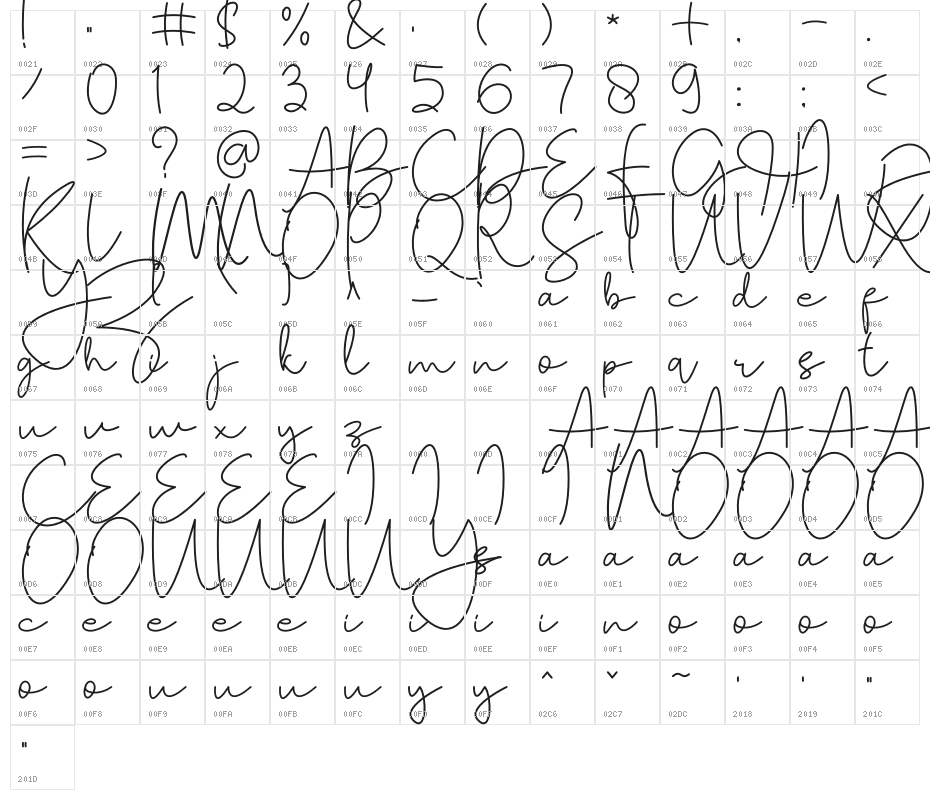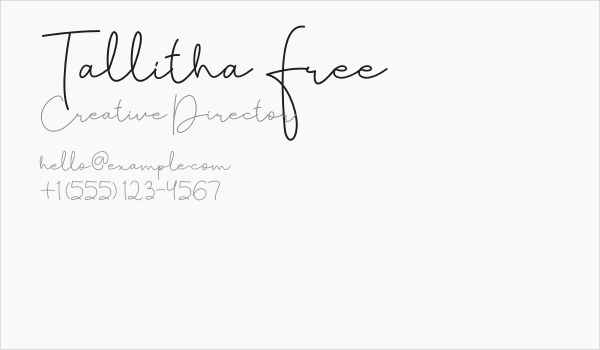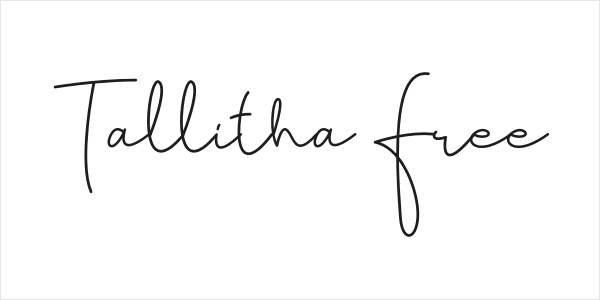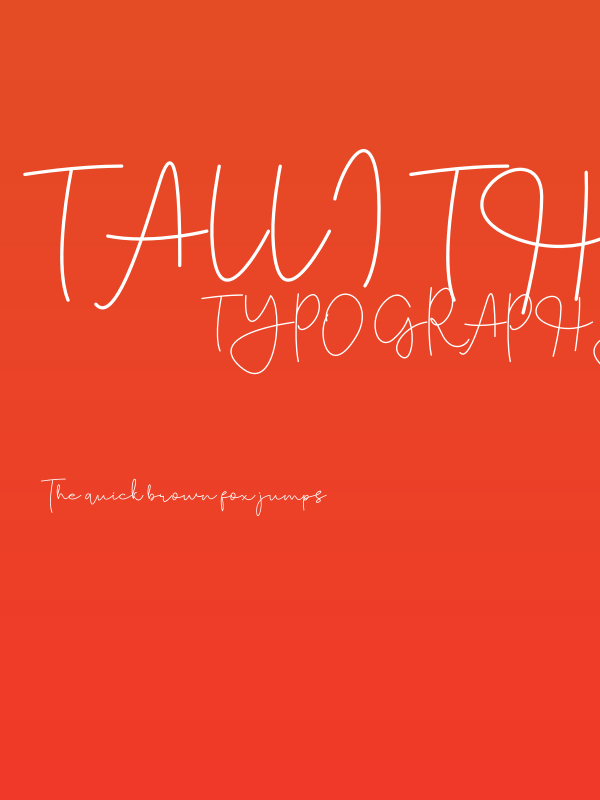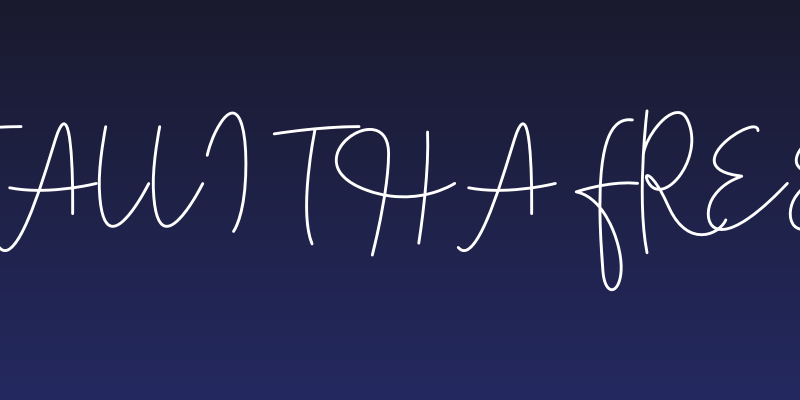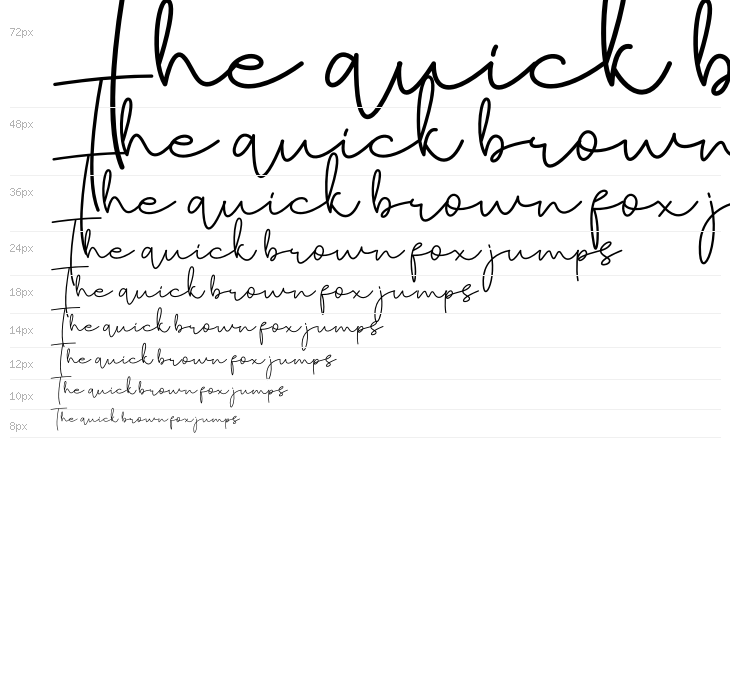
Tallitha Free Font
Tallitha Free Description
This font features a lively and flowing handwritten style, characterized by its elegant and elongated letterforms. The uppercase letters exhibit a playful yet sophisticated flair, with smooth curves and a consistent stroke width that adds to its legibility. The lowercase letters maintain a cohesive look, with slightly exaggerated loops and tails that enhance its cursive appeal. Numbers and special characters are designed to complement the overall aesthetic, ensuring a harmonious appearance across all text. The font's design is both modern and timeless, making it versatile for various applications.
| Use Case | Logos, Invitations, Social Media |
| Proposed Projects | Ideal for wedding invitations, greeting cards, personal branding, and social media graphics. |